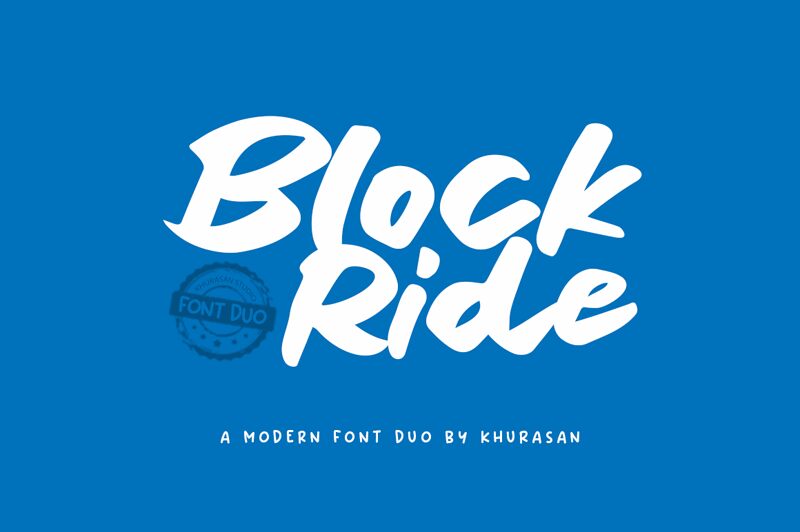
Block Ride, designed by Khurasan, is a smooth brush font. This eye-catching font is perfect for headlines, posters, logos and other creative projects that need an attention-grabbing look.
Block Ride